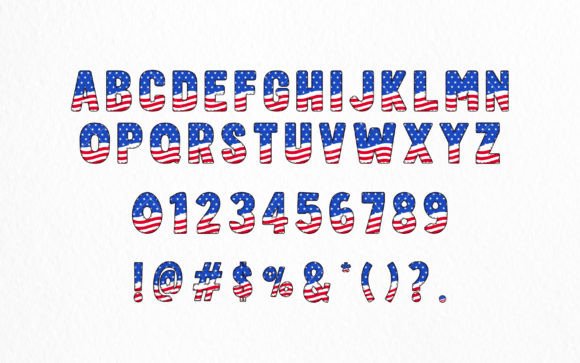
A Patriotic Spark for Your Designs
Remember the moment when you decided to create a custom invitation for the 4th of July celebration? Or perhaps you’re designing a patriotic logo for a client? Whatever the occasion, you’re about to unleash a wave of nostalgia and patriotism with the perfect tool: the American Flag Font.
This quintessentially American font is not just a typeface, but a testament to the enduring spirit of the nation. Elaborately designed to capture the essence of nationalistic pride and heritage, it adds an unmissable touch to any design project. For designers, the American Flag Font is a valuable asset, allowing you to infuse your work with a patriotic spark that’s sure to leave a lasting impression.
Whether you’re a seasoned designer or just starting out, this font is a must-have for any project that requires a touch of American fervor. With its compatibility with various design programs, including Cricut Design Space and PhotoShop, you’ll be able to unleash your creativity and bring your ideas to life.
American Flag Font Key Features
- Font Type: Display font, specifically designed to resemble the American flag
- Size: Supports a wide range of font sizes, from 8pt to 1000pt, making it suitable for various applications
- Resolution: Designed to be scalable, with optimal results at 300 DPI (dots per inch) and above
- Unique Characteristics: Features 50 white stars and 13 red stripes, making it a distinctive and patriotic font
Design Review: American Flag Font
Overall, I think the American Flag Font is a unique and bold choice for anyone looking to make a statement. ✨ The font’s distinctive red and white color scheme is sure to grab attention, and its bold, blocky design is reminiscent of classic American typography.
Here are some things that work well with this font:
- ✨ The font’s bold, blocky design makes it easy to read, even from a distance.
- ✨ The red and white color scheme is instantly recognizable and evokes a sense of patriotism.
- ✨ The font’s unique design makes it stand out from more generic sans-serif fonts.
- ⚠️ The font may be too bold or overwhelming for certain designs or applications.
- ⚠️ The font’s blocky design may not be suitable for fine or detailed text.
- ⚠️ The font may not be as versatile as some other fonts, and may not work well in certain contexts.
Overall, I think the American Flag Font is a great choice for anyone looking to add a bold, patriotic touch to their design. However, it’s worth considering the potential limitations and using it judiciously to avoid overwhelming the viewer.
The American Flag Font is commonly used in:
1. Patriotic designs and graphics.
2. Holiday-themed decorations and invitations.
3. Branding and marketing materials for patriotic businesses.